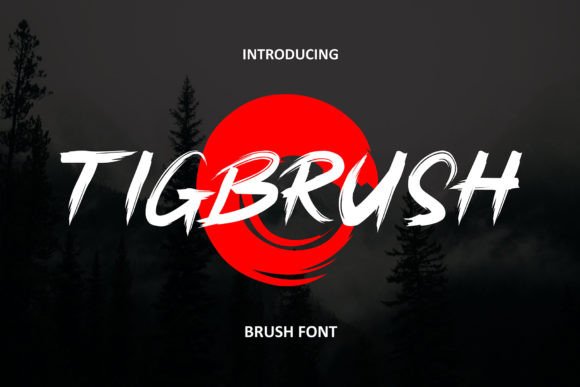
Tired of the same old, monotonous fonts that fail to capture the essence of your digital creations? Embark on a typographic adventure with Tigbrush, the remarkable script font family that adds a touch of authenticity and charisma to your designs. Inspired by the beauty of real brush strokes, Tigbrush brings a natural, organic feel to your headlines and design projects, effortlessly elevating them beyond the ordinary.
Unleash the endless versatility of Tigbrush, a font family that effortlessly adapts to a plethora of design styles. Its carefully crafted brush strokes dance across the digital canvas, creating eye-catching logos, captivating social media posts, and stunning invitations that leave a lasting impression. Tigbrush is the perfect companion for creatives seeking to inject a touch of genuine artistry into their digital endeavors.
No longer settle for fonts that lack personality. Tigbrush breathes life into your designs, transforming them into captivating expressions of your unique style. Let your imagination run wild as you explore the creative possibilities of Tigbrush, a font family designed to spark inspiration and leave an unforgettable mark on your audience. Seize the opportunity to elevate your designs to new heights of creativity and authenticity with Tigbrush, a font family that will redefine your digital masterpieces.
With Tigbrush, you'll discover a font family that effortlessly blends the charm of handwritten strokes with the precision of digital typography. Its meticulously rendered characters evoke the beauty of traditional brushwork, adding a touch of warmth and authenticity to your designs. Tigbrush is the perfect choice for creating heartfelt greeting cards, charming wedding invitations, and enchanting branding materials that will captivate your audience.
Tigbrush, with its captivating script style, is a font family created with the Cricut enthusiast in mind. Its bold and energetic strokes cut through the digital noise, ensuring your designs stand out, whether on intricate cards or eye-catching T-shirts.
Tigbrush is a font family that will ignite your creativity and redefine your design aesthetic. Its natural charm and versatility will transform your projects into captivating works of art, leaving your audience spellbound. Embrace the power of Tigbrush today and elevate your designs to new heights of creativity and authenticity.